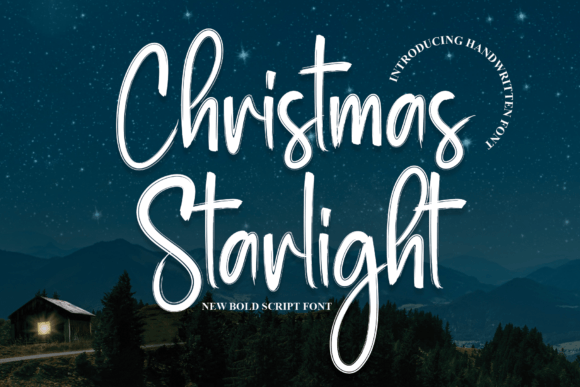
Embark on a journey of elegance and charm with Christmas Starlight Font, an exceptional script font crafted meticulously by andikastudio. Recognized as the Best Font For Brochure 2017, this font is not just a collection of letters but an exquisite art form that will transform your creations into masterpieces.
Christmas Starlight's captivating style evokes the magic of written words, adding a personal touch to your designs. Picture your wedding invitations adorned with this font, each letter flowing like a delicate dance, capturing the essence of your love story. Or envision your social media posts and logos radiating with a unique handwritten charm, captivating the hearts of your audience.
From product packaging and labels to photography and watermarks, Christmas Starlight's versatility knows no bounds. It effortlessly blends into any project, adding a layer of sophistication and artistry that sets your work apart from the ordinary. Whether you're a designer, a marketer, or a creative entrepreneur, this font is your secret weapon to leave an unforgettable impression.